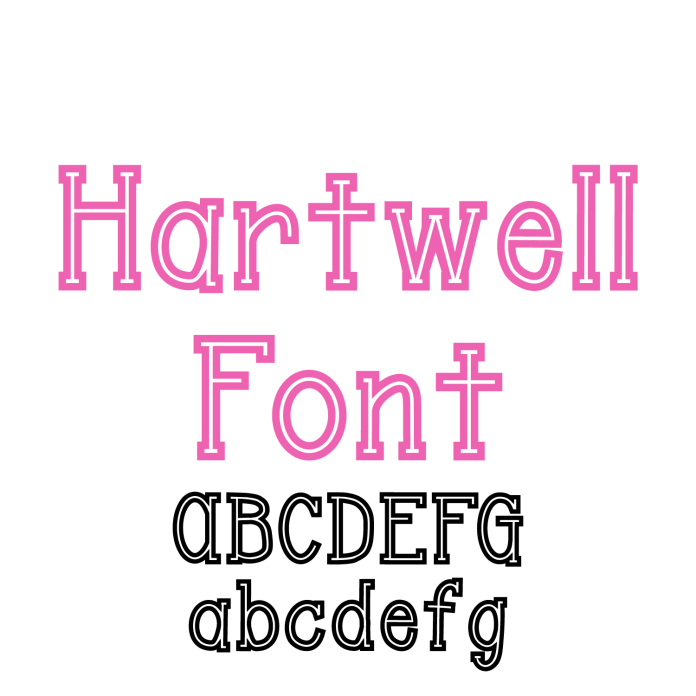
Introducing Hartwell Font – a bold and elegant outline serif font perfect for making stylish, eye-catching designs! With classic serif structure and a modern outlined look, Hartwell is ideal for monograms, headlines, labels, stickers, wedding decor, greeting cards, home signs, and more. This versatile font pairs beautifully with script or solid fonts and adds a touch of sophistication to any project. Perfect for cutting with vinyl, HTV, cardstock, and printable materials, Hartwell offers clean lines and stunning detail. Whether you're crafting for events or everyday decor, Hartwell Font brings refined charm to your next creative project. Download today!